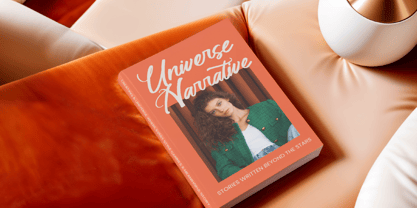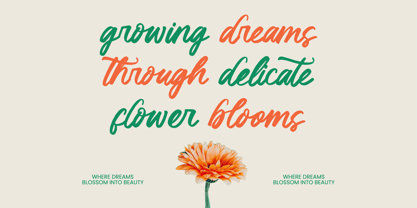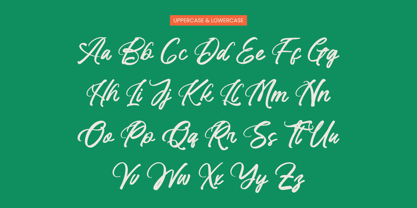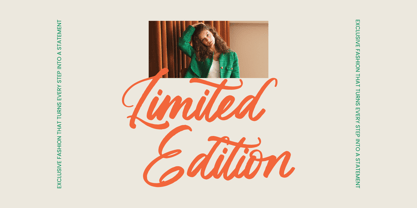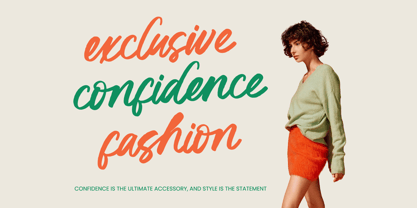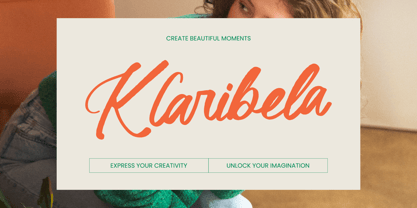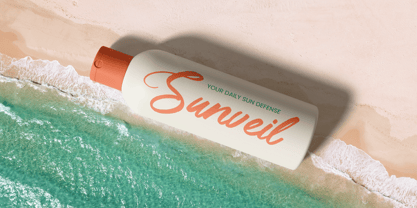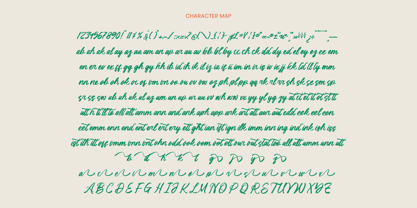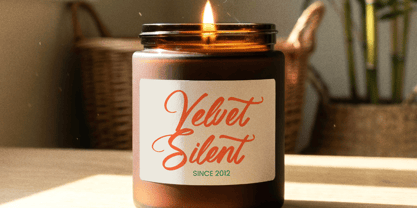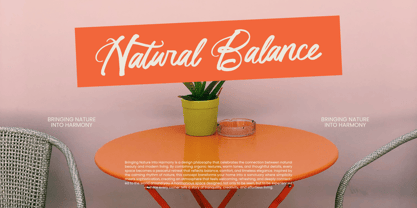
Klaribela
Die Schriftfamilie Klaribela wurde von Heru Utama Putra entworfen und von Letterena Studios veröffentlicht. Klaribela enthält 2 Stile und Familienpaketoptionen. Mehr über diese Familie
Klaribela - Bold Calligraphy Font
Elevate your creative vision with a typeface that embodies sophisticated energy and hand-crafted precision. Klaribela - Bold Calligraphy Font stands out as a premier choice for designers seeking a commanding visual presence. This high-impact script features a rhythmic flow and robust weight that ensures readability without sacrificing its artistic soul. With its fluid strokes and organic texture, Klaribela - Bold Calligraphy Font provides an authentic, hand-drawn aesthetic that captures the viewer's attention instantly.